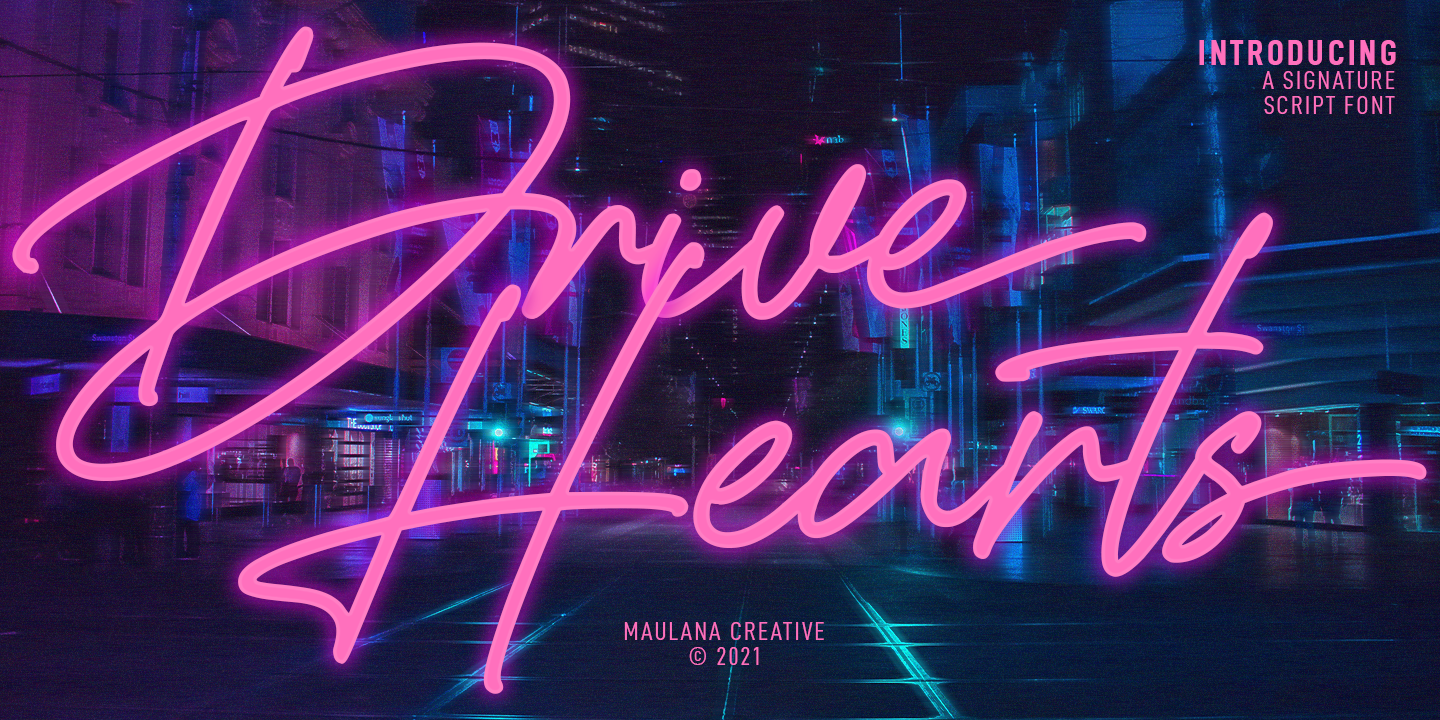
Drive Hearts Font is perfect for romantic road trip branding, vintage drive-in theater promotions, retro car show communications, couples travel blog materials, nostalgic diner signage, classic automotive event marketing, romantic getaway packages, and heartfelt valentine's day campaigns. This charming typeface excels in applications where romantic nostalgia, automotive passion, and heartfelt connection are essential for connecting with audiences who appreciate the romance of the open road and the heartwarming memories created during classic American driving experiences.
What makes Drive Hearts Font so exciting is its endearing fusion of automotive nostalgia with romantic sentiment that perfectly captures the essence of classic road trips and the heartfelt connections formed during memorable driving adventures. The font features playful, curved letterforms with romantic characteristics that evoke heart-shaped tail lights and love-struck road signs. Its sentimental character conveys romance, adventure, and nostalgic joy - essential qualities for brands serving couples, automotive enthusiasts, and nostalgic audiences who appreciate vintage car culture, romantic travel experiences, and the heartwarming tradition of American road trip adventures.
The Drive Hearts Font family includes multiple romantic weights and automotive-inspired variations that enhance its nostalgic appeal. Some versions feature heart-shaped decorative elements and vintage car styling cues that simulate classic automotive design, while others provide streamlined variants that maintain the font's romantic character with improved readability for professional automotive applications and commercial romantic travel communications.
Whether you're creating branding for automotive events, designing materials for romantic travel services, or developing marketing campaigns for nostalgic experiences, Drive Hearts Font Free Download provides the heartfelt authenticity your project requires. The font's romantic character makes it particularly effective for brands targeting couples and automotive enthusiasts who appreciate vintage car culture, romantic road trips, and the heartwarming nostalgia of classic American driving adventures.
Drive into romance with Drive Hearts Font and cruise toward heartfelt brand communications with typography that celebrates the romantic nostalgia of classic road trips and automotive love stories.